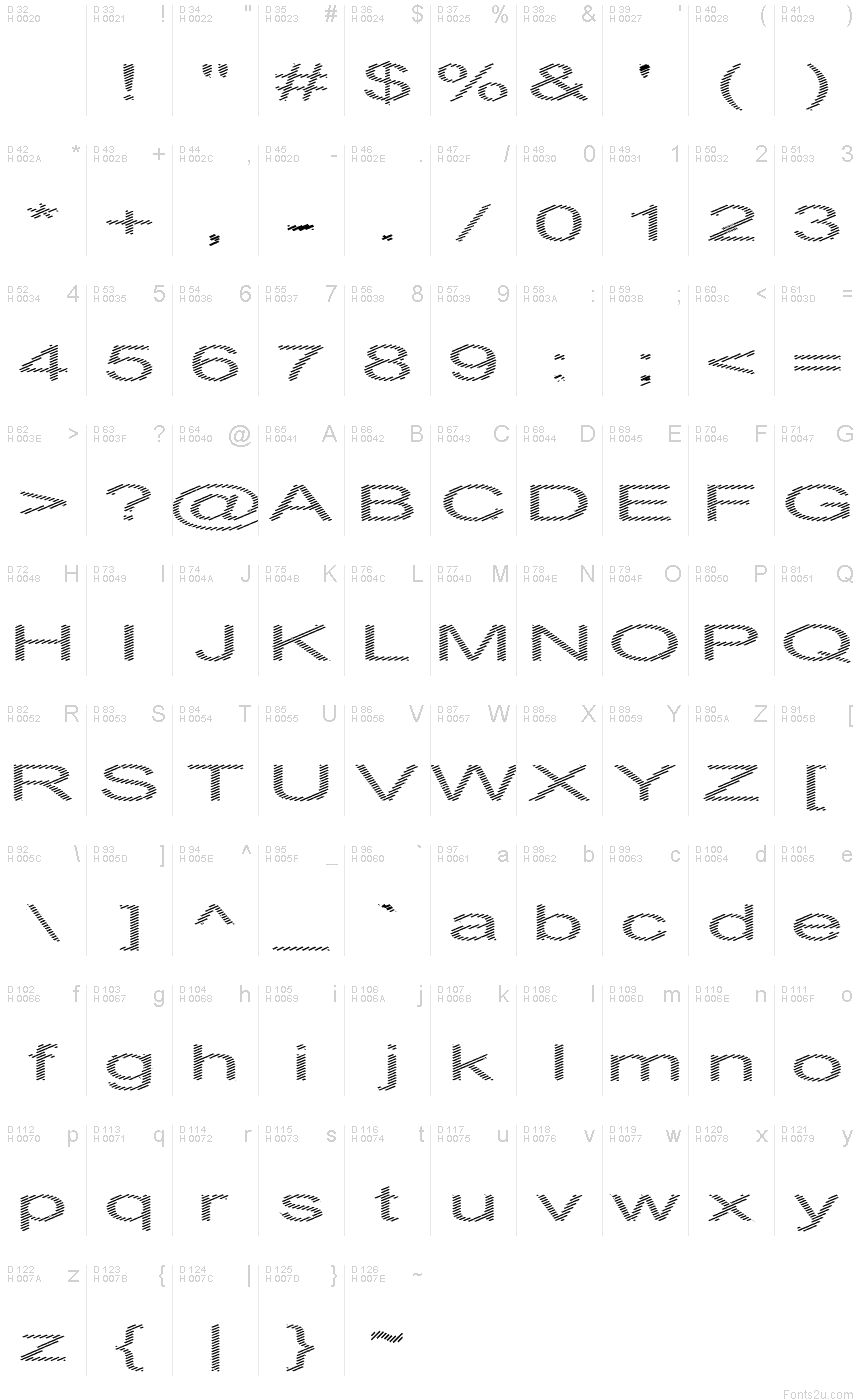
Inningham spread
Inningham Spread font by Gemfont98 is a free eroded display typeface with a striking diagonal stripe texture that makes every word feel in motion. Its letters are slim and airy, built from tight parallel slashes that create a cool, almost holographic shimmer on the page. The result is edgy but still clean enough to read at a glance, especially at larger sizes where the striped pattern really pops.
Using Inningham Spread, headlines and logos instantly take on a kinetic, high-energy feel that suits sports graphics, music posters, event flyers, gaming titles, tech branding, and bold social media covers. This free font works beautifully when you keep copy short and punchy, then pair it with a simple geometric sans serif for body text to let the textured lettering steal the spotlight.